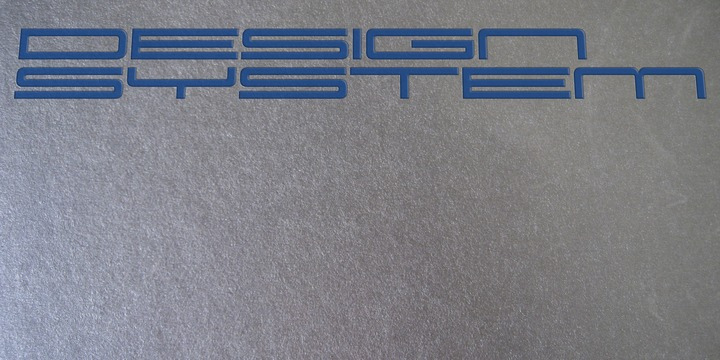
Design System Font
Design System Font is perfectly suited for user interface design, digital product branding, software application interfaces, tech company communications, systematic brand guidelines, dashboard designs, web application layouts, mobile app typography, and comprehensive design documentation.
What makes Design System Font so exciting is its exceptional systematic precision and methodical approach to typography that provides designers with the perfect foundation for creating cohesive, scalable design systems across all digital platforms. This meticulously crafted typeface embodies the principles of systematic design with its carefully calibrated character shapes and mathematical proportions that ensure consistent performance and visual harmony throughout complex digital ecosystems. The font's systematic clarity and technical precision create an atmosphere of professional competence and organized efficiency that resonates with design teams and technology professionals who value structured approaches to user experience design. Design System Font stands out through its ability to convey systematic thinking, design methodology, and technical excellence, making it perfect for projects that need to establish design authority while providing reliable typography solutions for comprehensive digital design systems.
The Design System Font family includes an extensive range of weights from Thin to Black, each available in both roman and italic styles with comprehensive character sets optimized for systematic design applications. The family also features condensed variations, tabular figures, and technical symbols that enhance the font's systematic appeal and provide complete solutions for comprehensive design system implementations.
The technical superiority of Design System Font includes comprehensive character sets supporting multiple languages, advanced OpenType features, and precision-engineered spacing specifically optimized for digital interfaces and systematic design applications. The font maintains exceptional legibility across all screen resolutions while providing the consistency needed for complex design systems that require seamless integration across diverse digital platforms.
Whether you're developing design system documentation, creating digital product interfaces, building comprehensive brand guidelines, or implementing systematic typography solutions that demand methodical precision and scalable functionality, Design System Font delivers the perfect combination of systematic authority and contemporary functionality that ensures your design systems remain coherent and professionally reliable for modern digital design challenges.